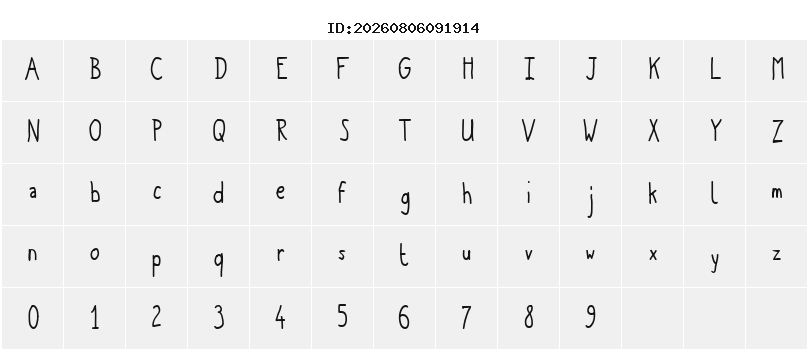
• Font Name: Origin
• Full Font Name: Origin
About Origin.ttf
Origin.ttf is a modern, elegant sans-serif font designed for ultimate readability and visual harmony. Perfect for branding, headlines, web design, and print materials.